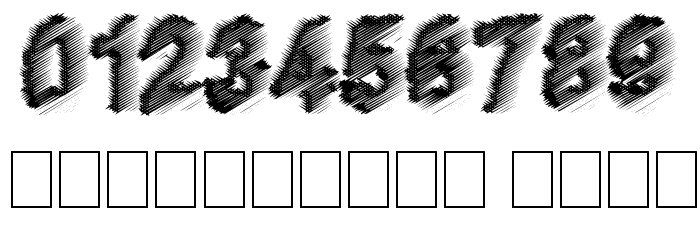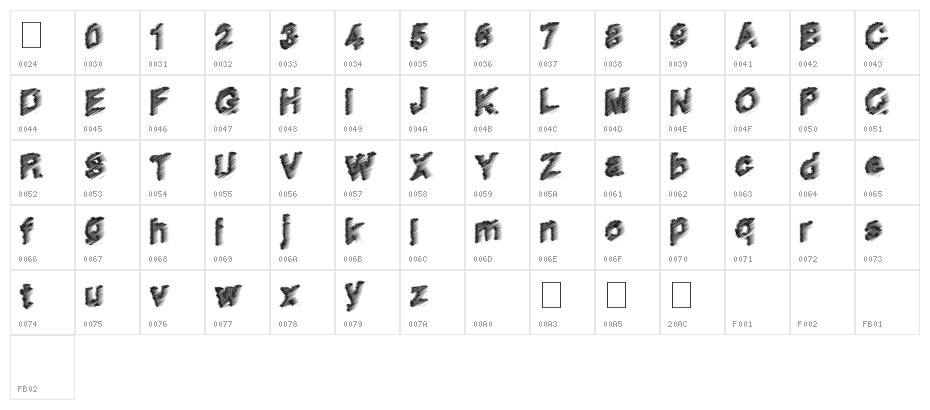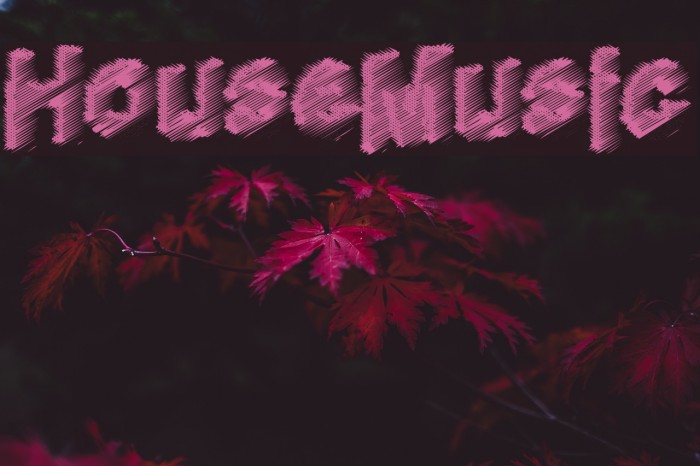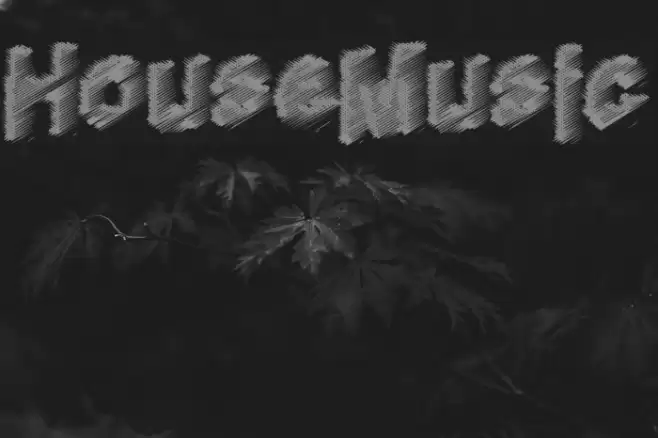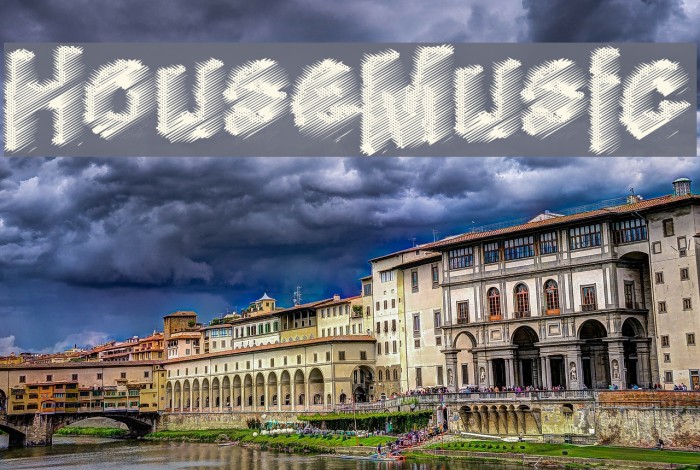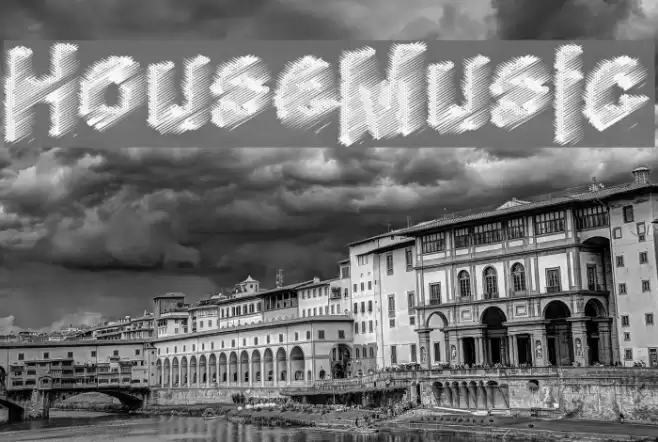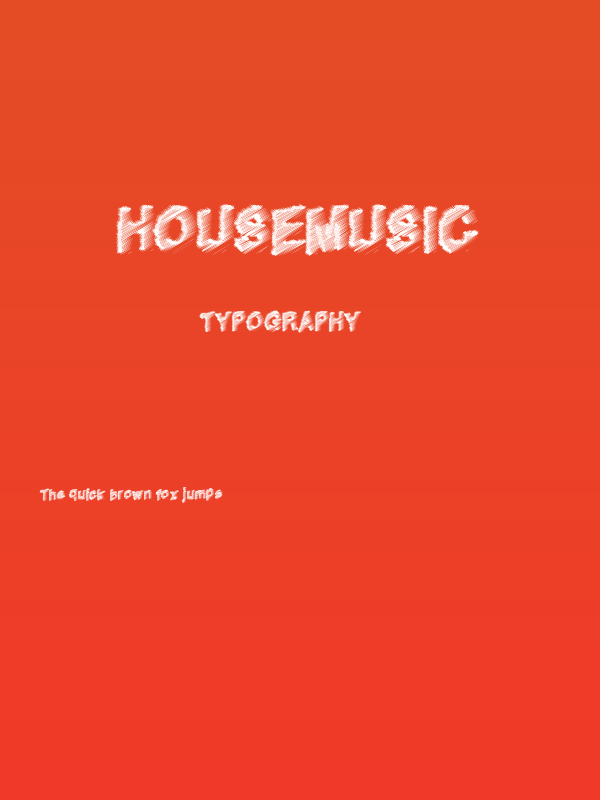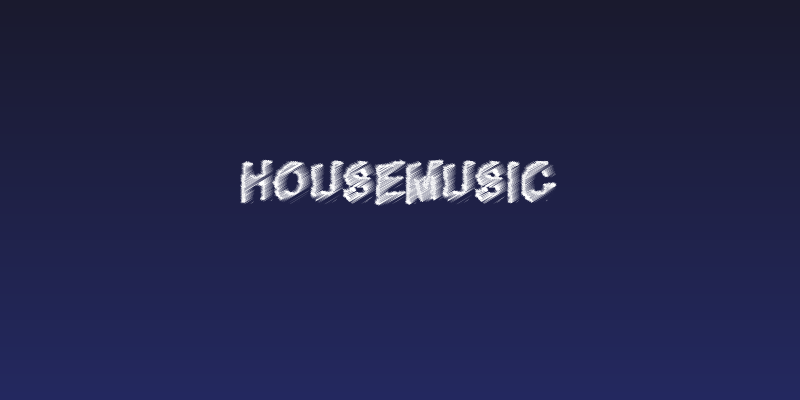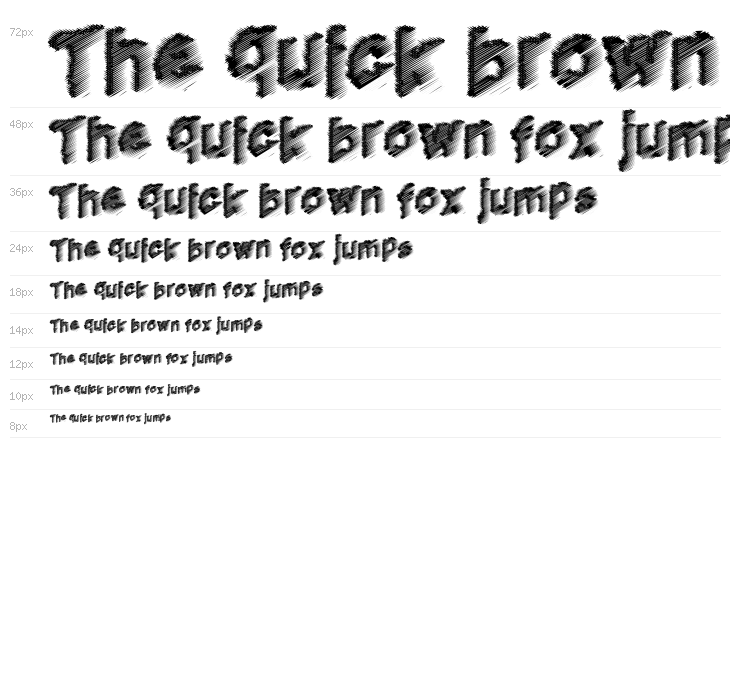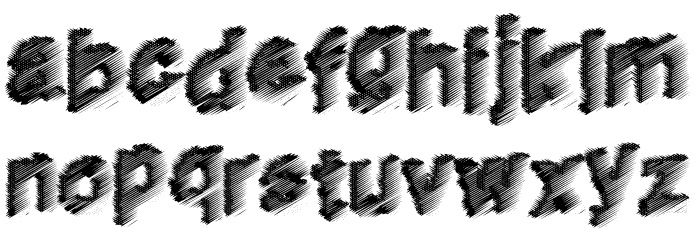
HouseMusic Font
HouseMusic Description
This font features a bold and dynamic style with a textured, sketch-like appearance. The characters are filled with diagonal lines that create a sense of movement and energy. The uppercase and lowercase letters maintain a consistent thickness, giving the font a cohesive look. The numbers and special characters follow the same design principles, ensuring uniformity across all elements. The overall aesthetic is modern and edgy, making it suitable for projects that require a strong visual impact.
| Overall Style | Modern, Edgy |
| Proposed Projects | Ideal for music album covers, event posters, urban-themed branding, and creative digital artwork. |